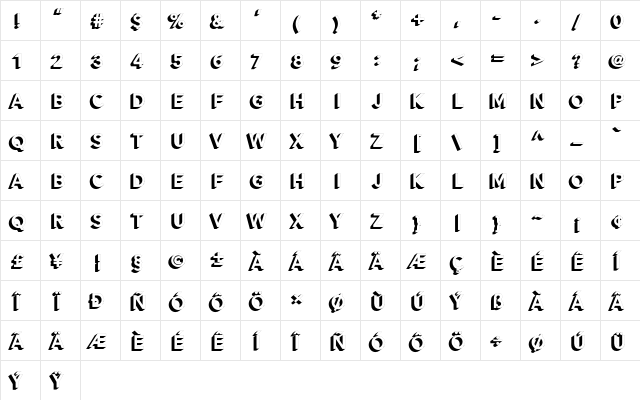
Alesand Extrude ExtBd Regular
| Designer | Solidtype Studio |
Alesand Extrude ExtBd is a composed and adaptable typeface that performs quietly and consistently across a wide range of design contexts.